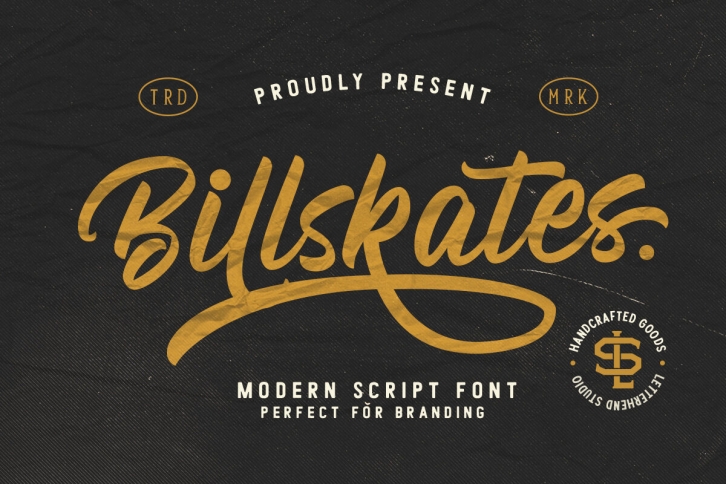
Introducing, Billskates, a modern script font. This font perfectly made to be applied especially in logo, and the other various formal forms such as invitations, labels, logos, magazines, books, greeting / wedding cards, packaging, fashion, make up, stationery, novels, labels or any type of advertising purpose.
• uppercase & lowercase
• numbers and punctuation
• multilingual
• ligatures
• alternates
• swashes
• PUA encoded
• contextual alternate